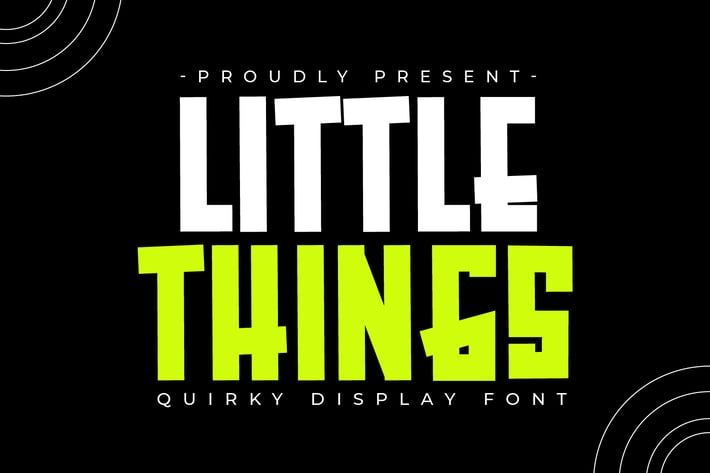
Little Things - Quirky Display Font
Introducing Little Things - Quirky Display Font
Little Things is a cool and bold display font. This font is ideal for writing web designs, business cards, or pretty much anything else that requires a unique, futuristic touch.